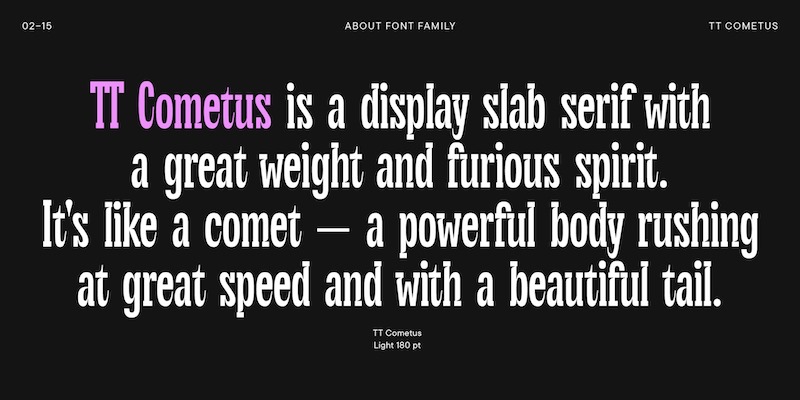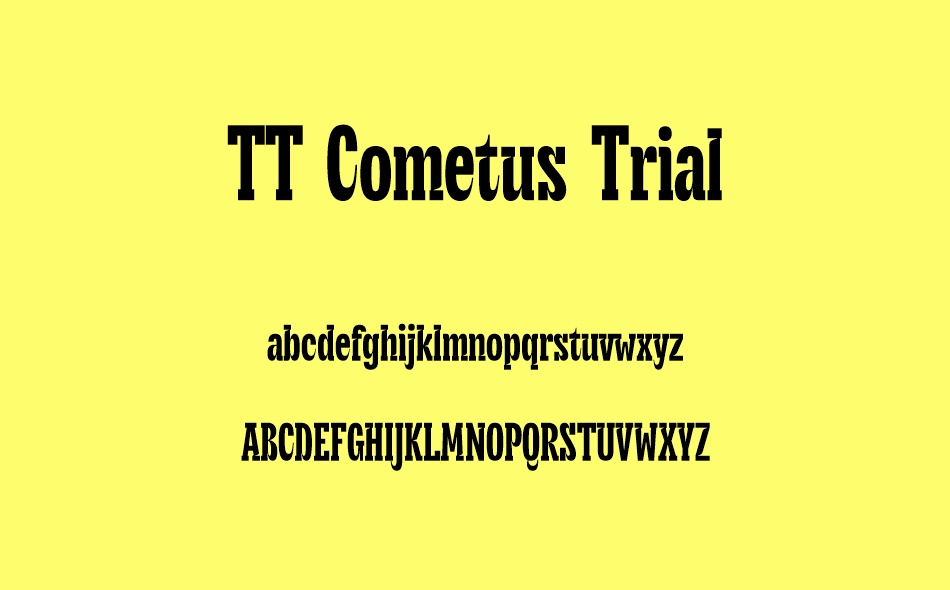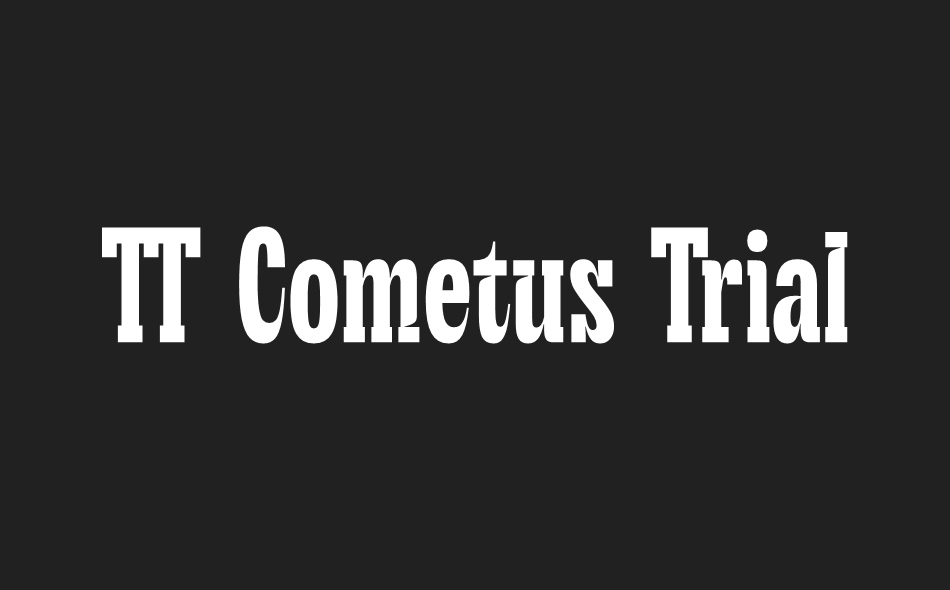
TT Cometus font
TT Cometus Font Family Type Specimen
TT Cometus
4 styles + 1 variable
About TT Cometus
Dynamic, attractive and catchy — the new
TypeType display font!
TT Cometus is an expressive typeface that
captivates from the first time you read a text
set in it. Despite its massiveness, the typeface
is malleable and dynamic, like a comet
piercing the space in order to achieve the only
goal — to capture the attention of the viewer.
TT Cometus is a slab serif whose strong serifs
are serifed at the junctions with the verticala
stroke to give the typeface a dynamic and
modern character. Thanks to this solution,
some elements of the font evoke associations
with calligraphic works, while display elements
remain stable thanks to massive serifs.
The pointed endings of the letters c, y, e, t and
noticeable inflows of arches and semi-ovals
make the character of TT Cometus dynamic.
The contrast between the thicknesses of the
horizontal and vertical elements is small, but
in the serifs, inflows, and letter endings, the
contrast is pronounced. The nature of the font
is balanced, and its friendliness is supported
by the smoothness of shapes.
Oriented towards the viewer, flowing yet
massive and dynamic, TT Cometus is suitable
for use in eye-catching projects. This is a
display font that shows its character better in
a large body size and can be used in printed
materials or on the web. The font looks
flawless in headlines and logos, and is suitable
for use in branding.
TT Cometus consists of 5 faces: 4 upright and
one variable font. Each face has 568 glyphs.
The font contains 18 OpenType features,
including a large number of ligatures, sets of
alternative characters for the ampersand and
the letter g.
Regular Light
Font family
TT Cometus consists of 5 faces: 4 upright
(Light, Regular, Bold, Black) and one variable
font. Each face has 568 glyphs.
Bold Black
Upright
TT Cometus Variable
Variable version of TT Cometus font has
weight oprtion with the values from
300 to 900.
Supported languages
TT Cometus supports more than 120
languages including Western, Central,
Northern European languages.